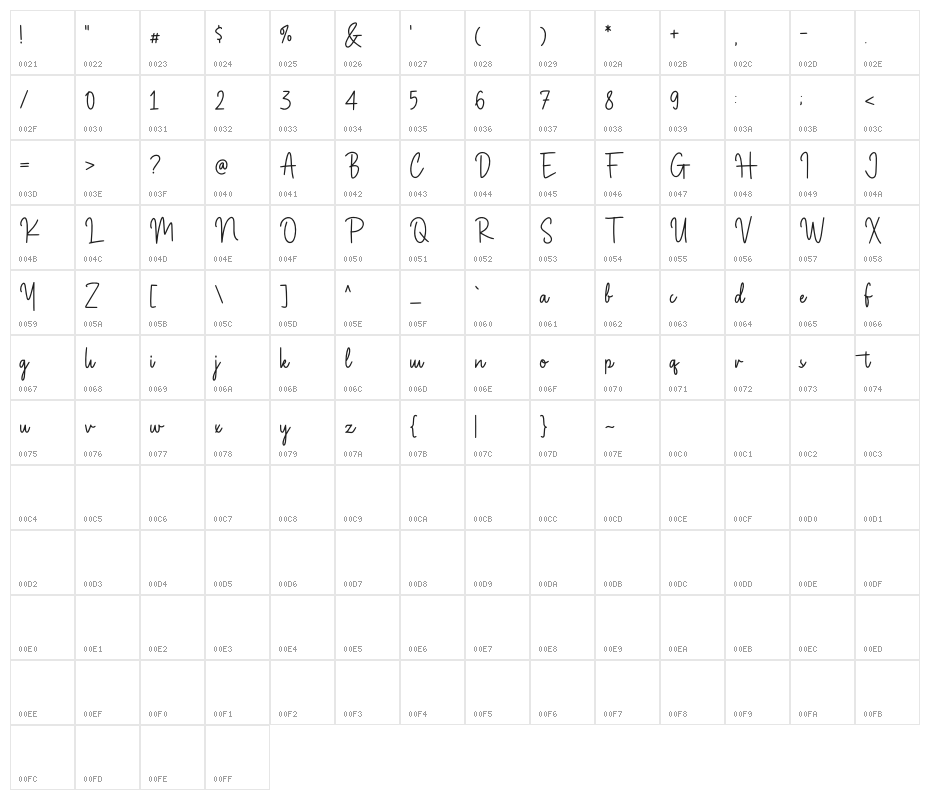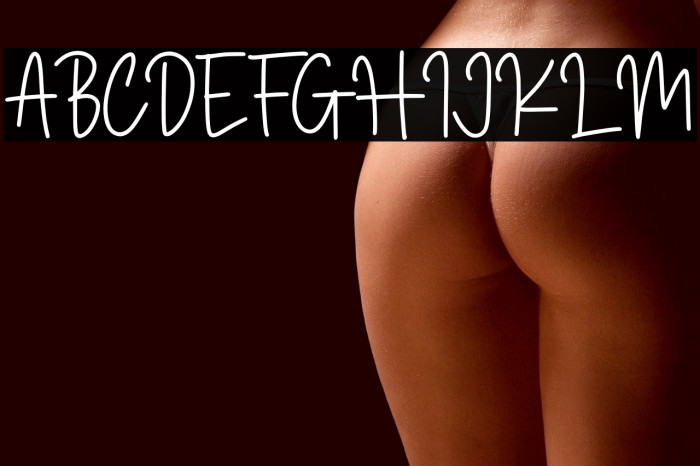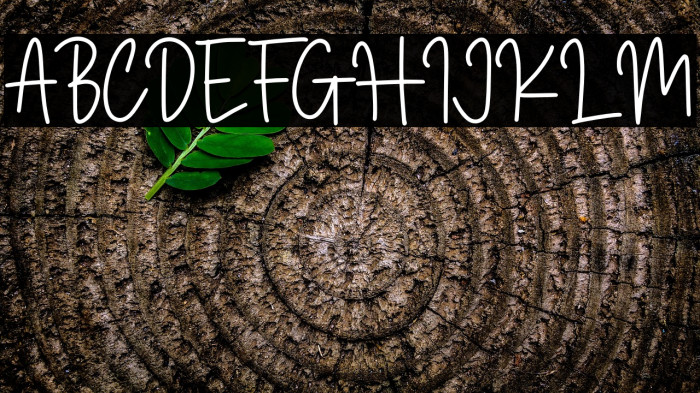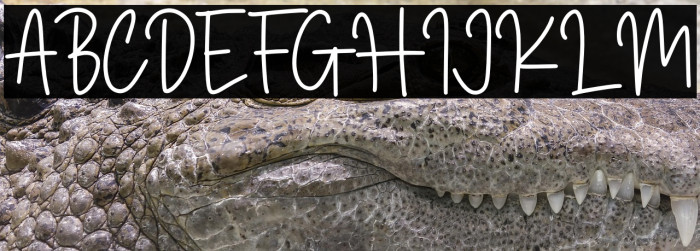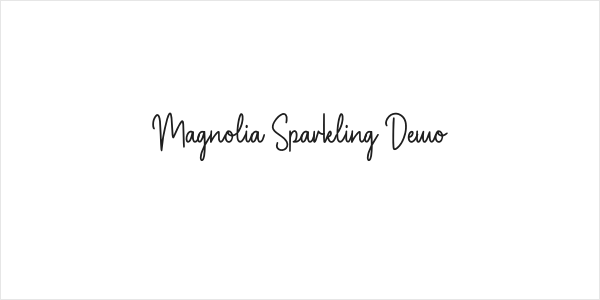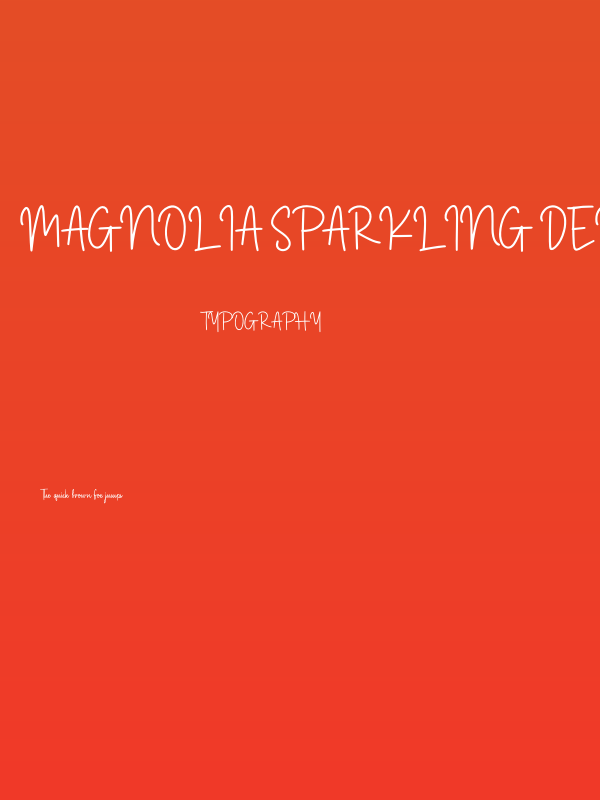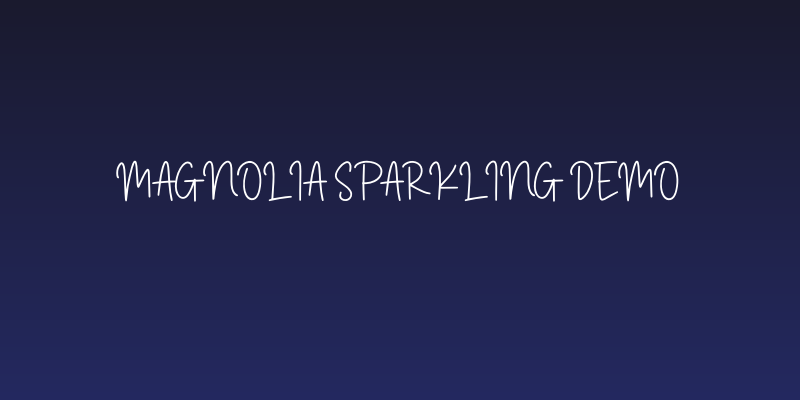
Magnolia Sparkling Demo Font
Magnolia Sparkling Demo Description
This font features a playful and elegant handwritten style, characterized by its smooth, flowing lines and slightly irregular letterforms. The uppercase letters are tall and slender, with a whimsical touch that adds personality. The lowercase letters maintain a consistent flow, enhancing readability while retaining a casual charm. Numbers and special characters are designed to match the overall aesthetic, making them suitable for a variety of creative applications. The font's unique style is perfect for adding a personal touch to any project.
| Use Case | Logos, Invitations, Social Media |
| Proposed Projects | Ideal for wedding invitations, greeting cards, branding, and social media graphics. |